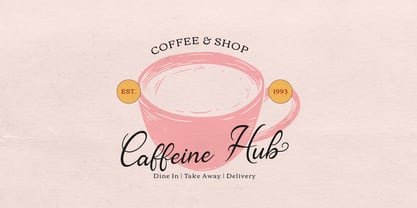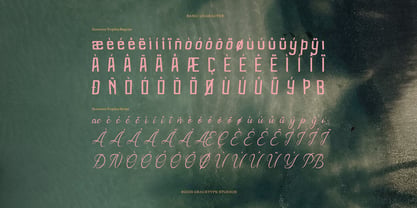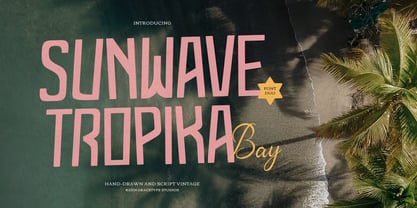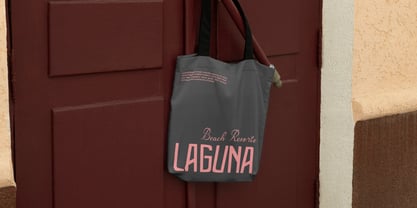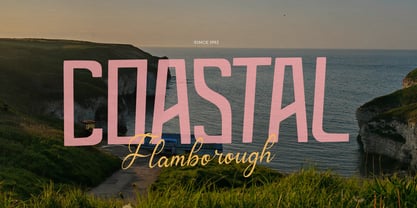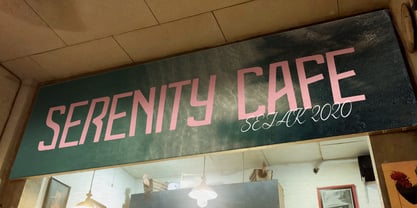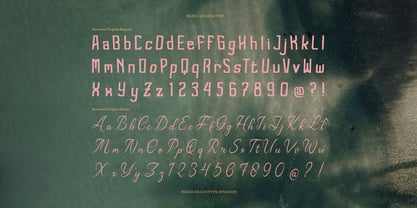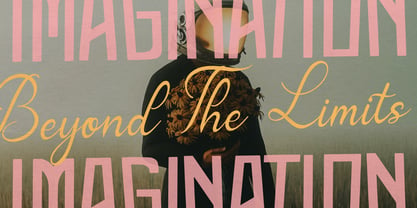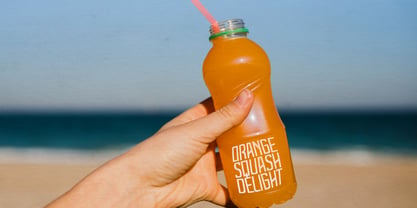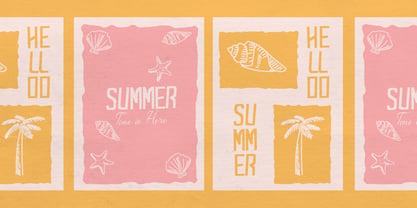
Sunwave Tropika Bay Script
by Tini Fitriani
The Sunwave Tropika Bay Script Font Family was designed by and published by Tini Fitriani. Sunwave Tropika Bay Script contains 2 styles and family package options. More about this family
Sunwave Tropika Bay | Hand Drawn Vintage Duo, from Gracetypestudio, suitable for any projects such as: logos, branding projects, homeware designs, product packaging, mugs, quotes, posters, shopping bags, t-shirts, book covers, name card, invitation cards, greeting cards, label, photography, watermark, special events, and all your other lovely projects that need a Hand Drawn Vintage Duo taste